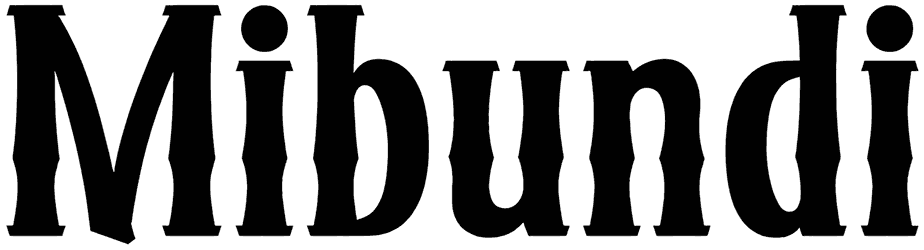
Mibundi Font
Let’s create a vintage design with this whiskey font to show off your creative talent. The Mibundi font’s letters have a salient and unique visual that can be captivating for many viewers with any taste. This display font doesn’t cover numbers, but you can count on it for different projects, such as a café sign.